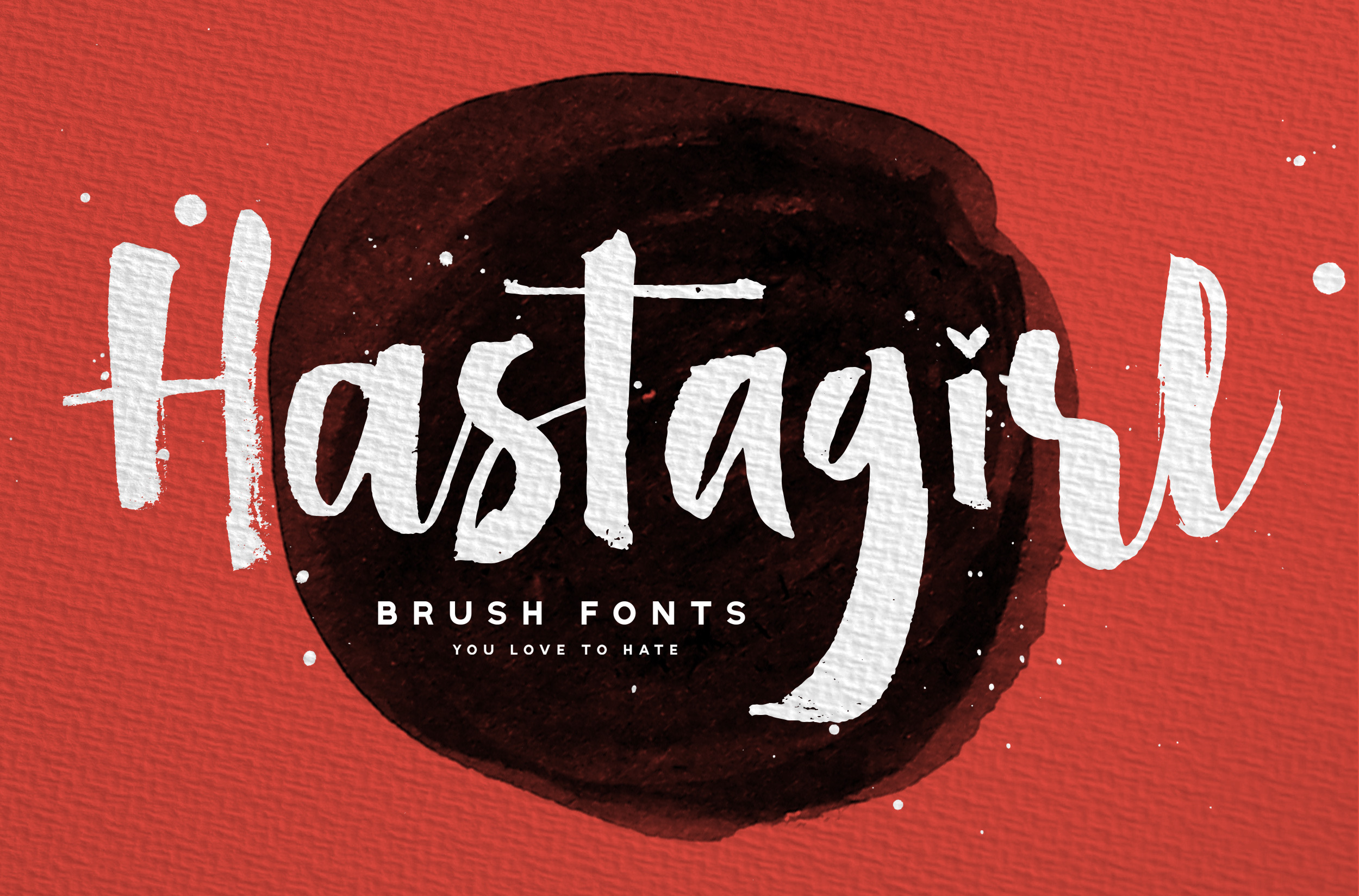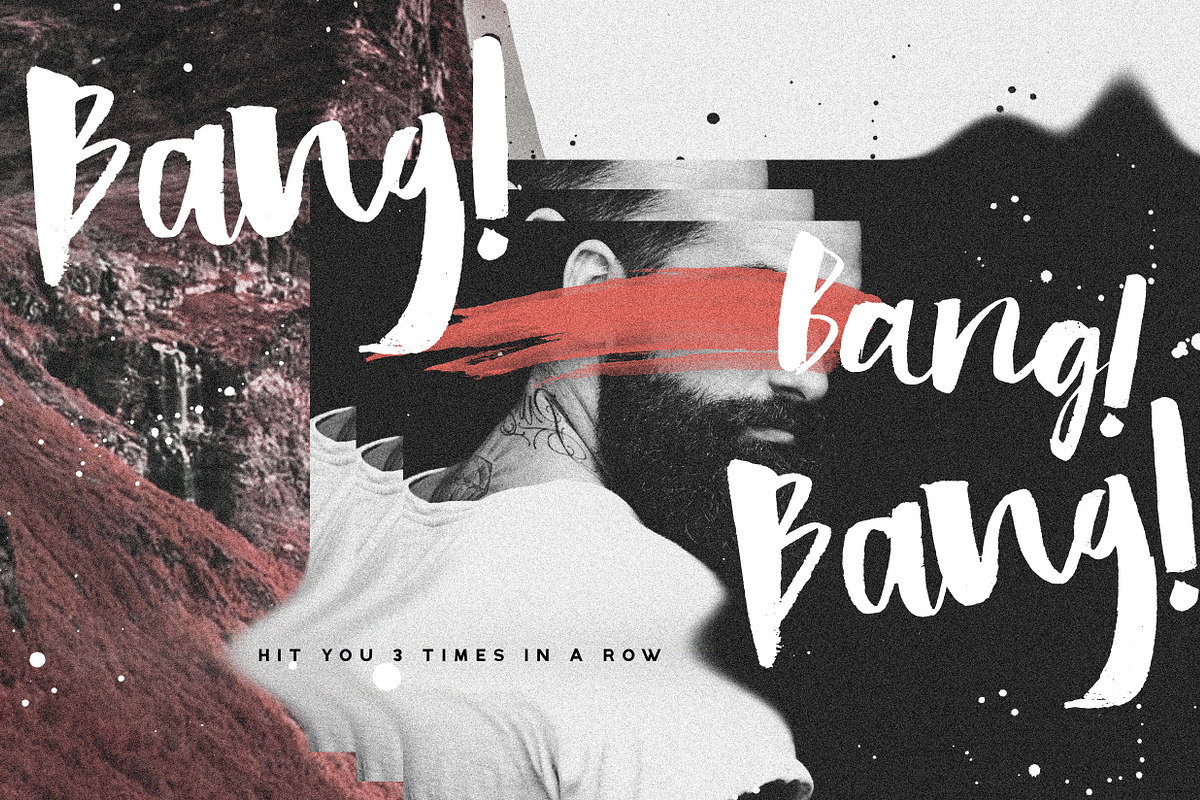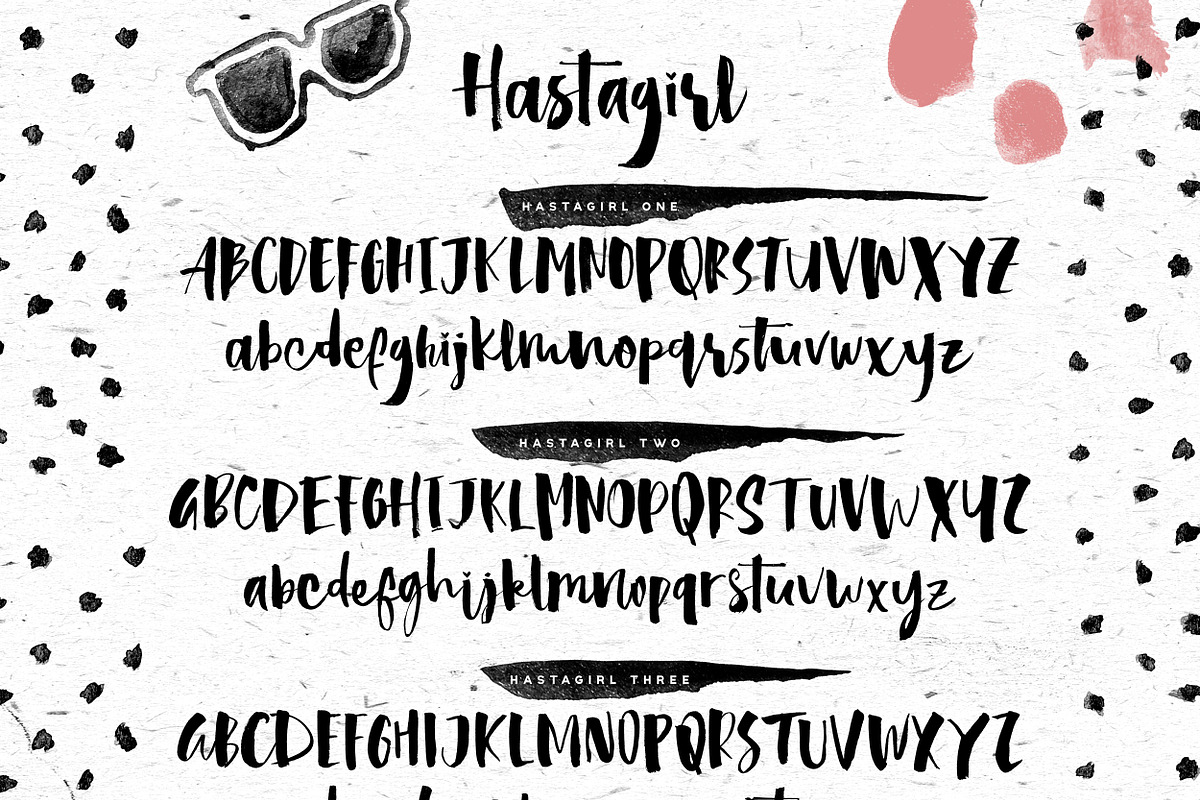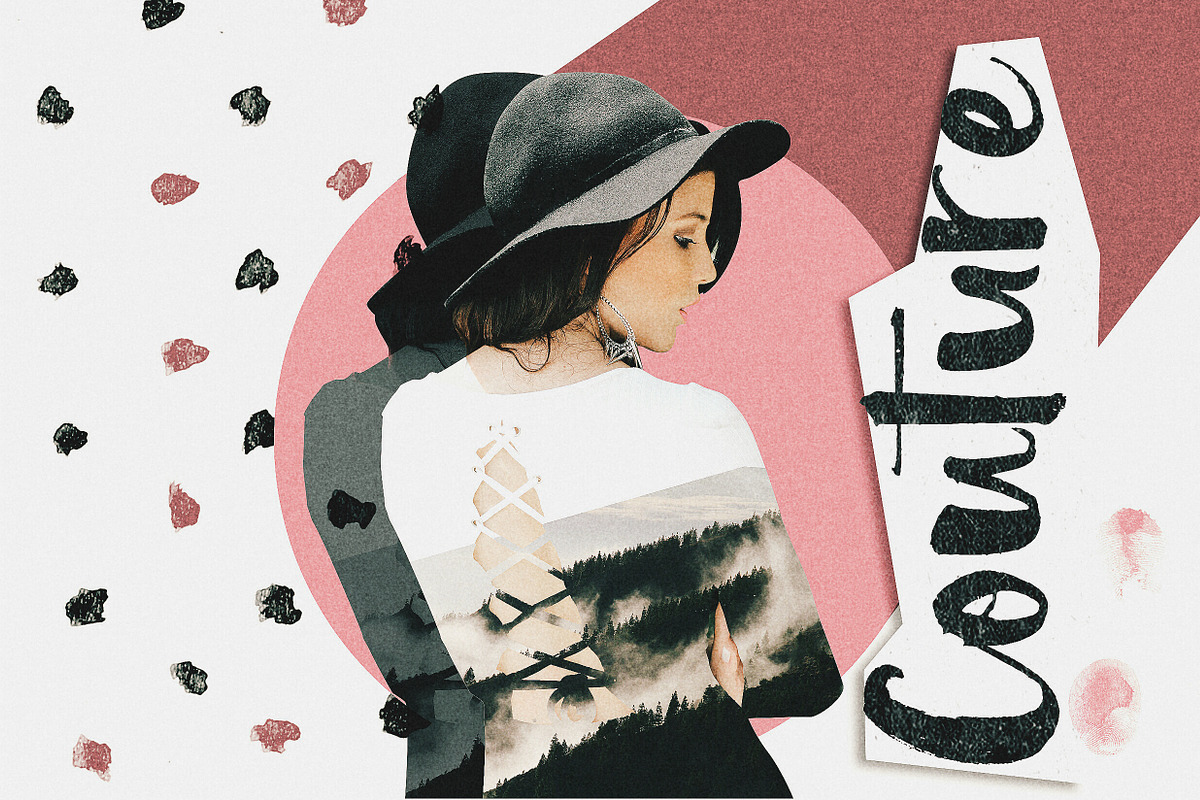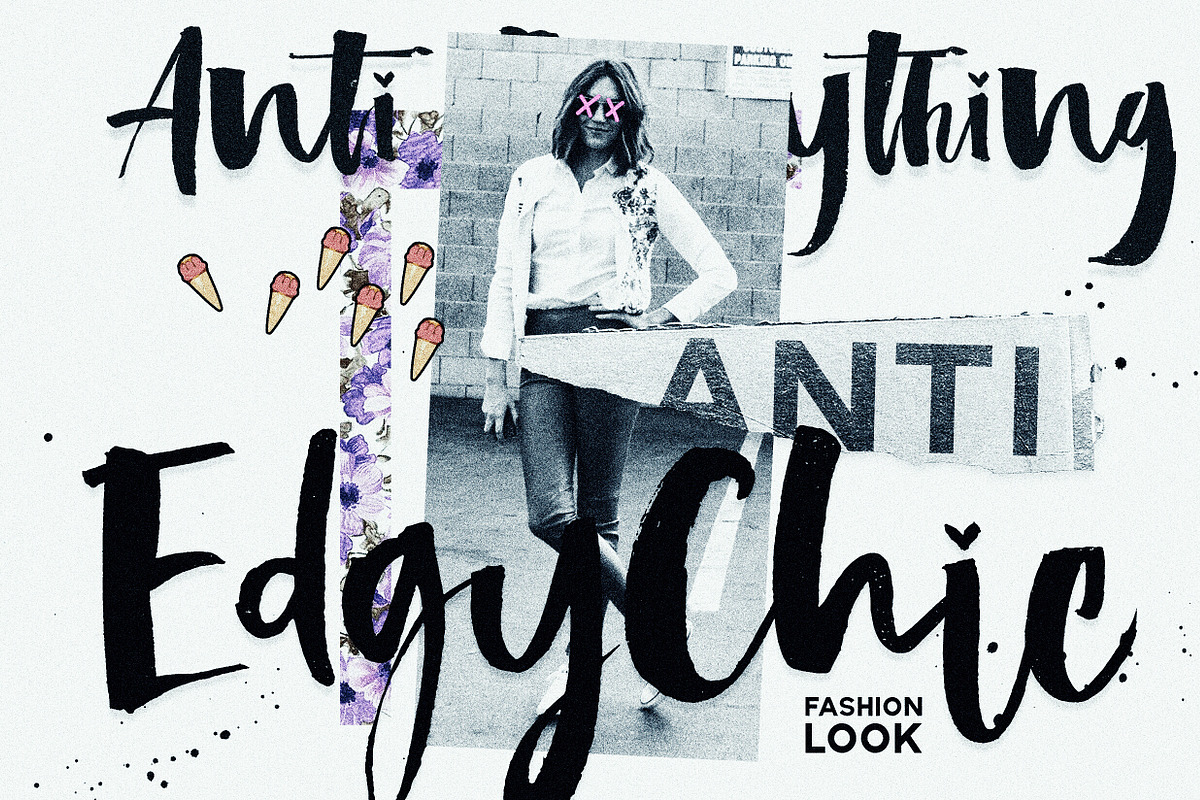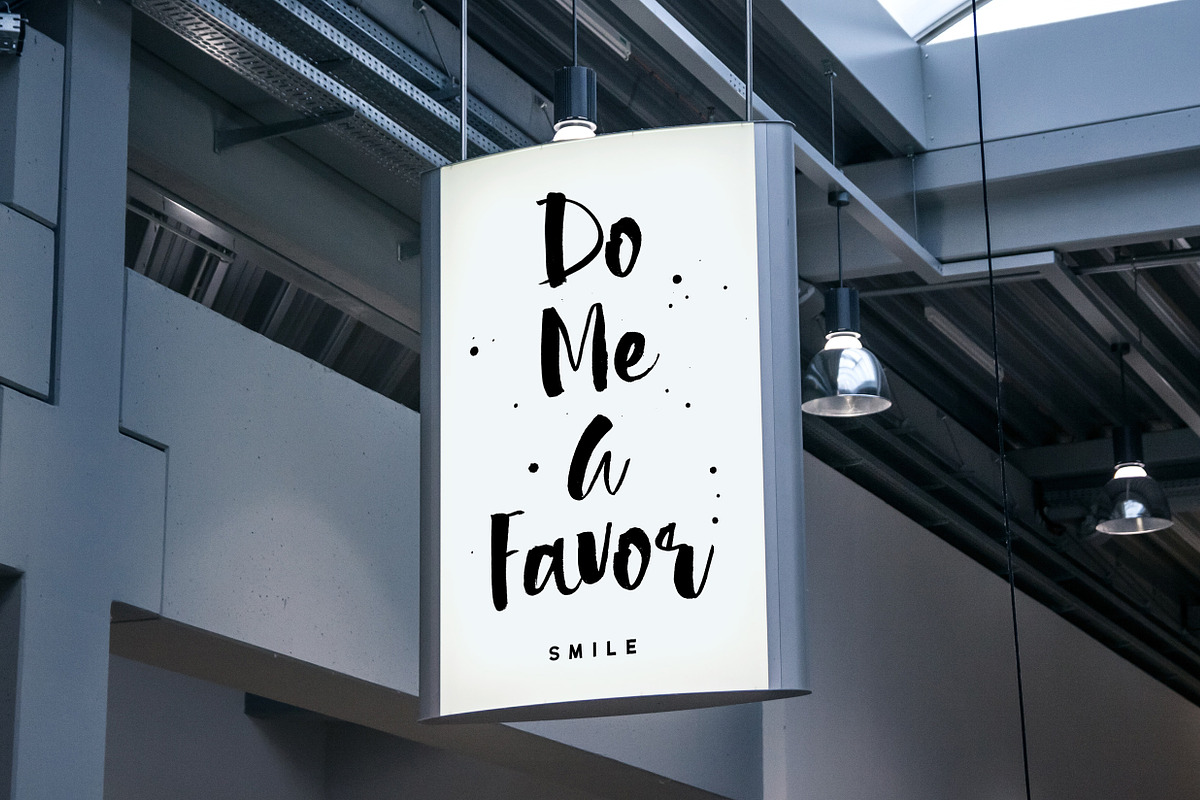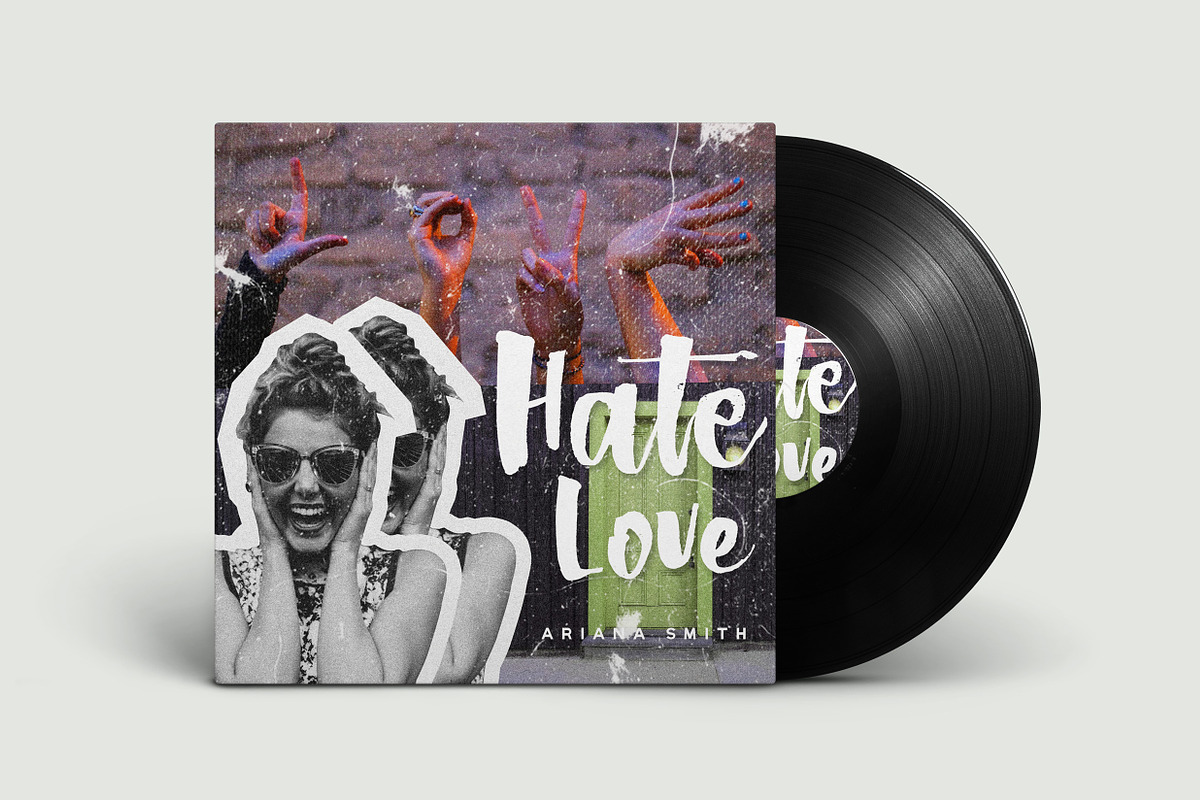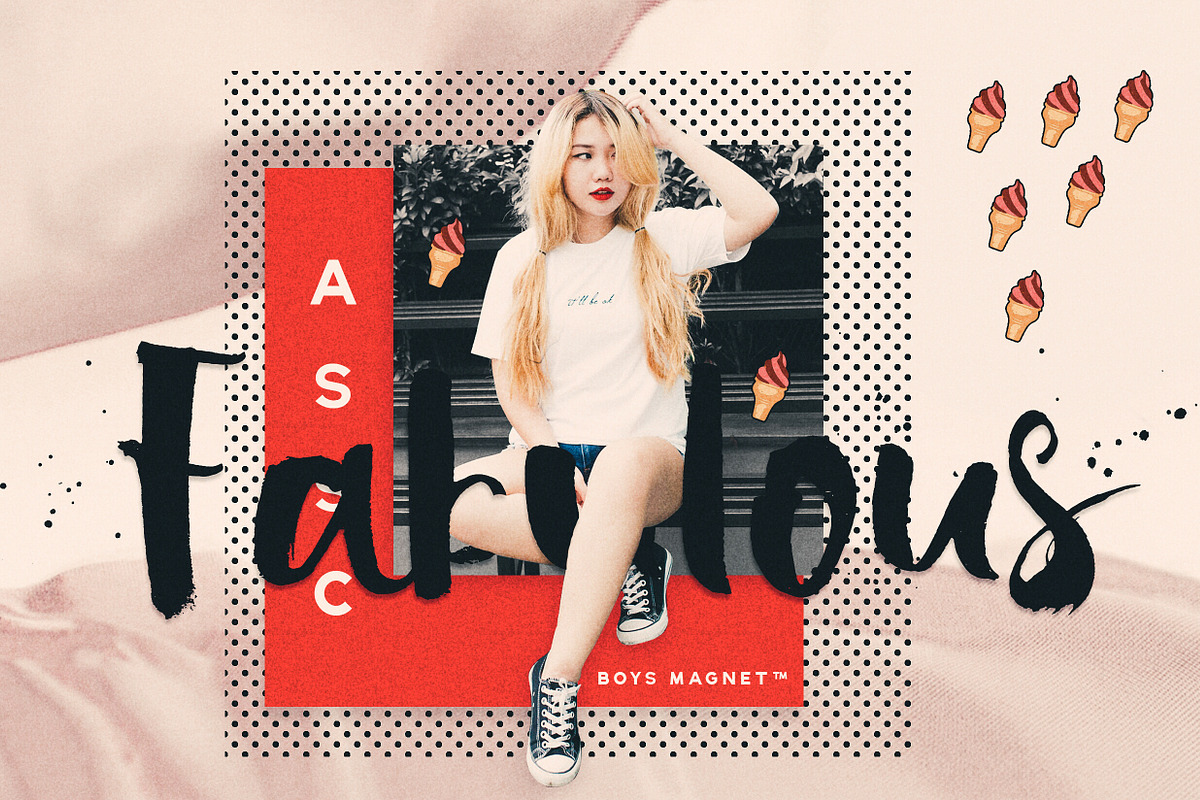
Hastagirl Chic brush watercolor font
Fashion is an instant language, when we talk about the graphic design, let's just say that fonts are the fashion of it. It's like an outfits and audience magnet of it. So that's what we came for, Please welcome, Hastagirl!, the fresh auto-chic and stylish attitude for your display look. Multiply the chicness of your design and show the world how special you are. Perfectly fit for your fashion branding, social media post, logo, handwritten quotes, packaging design, and everytime you need a stylish fonts to strike a pose.
Hastagirl One : It's a handwritten brush script font with a watery ink just to make you think its a watercolor. Using traditional brush and the random thick-and-thin, makes your brand stand out more than any others in the market.
Hastagirl Two : Since we hear so many peeps said that "two is better than one", then why don't we just double it? and Boom, here's another Hastagirl with the different styles in Uppercase and Lowercase from the first one. We know that fashion is all about mix-and-match, so combine them and get ready with all eyes on you, prepare the pose.
Hastagirl Three : Nothings special, just the same as the text above. But still, another different Uppercase and Lowercase then those two above. Should i say another Boom in the end of the words?